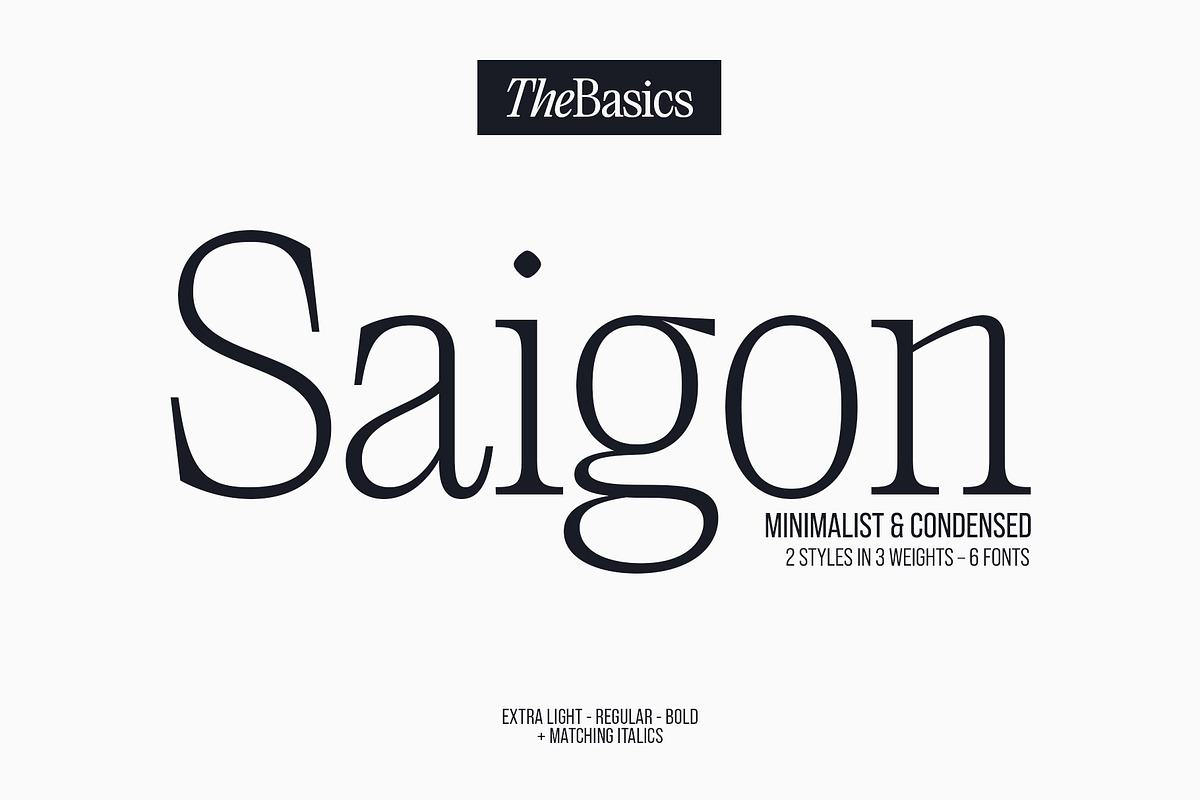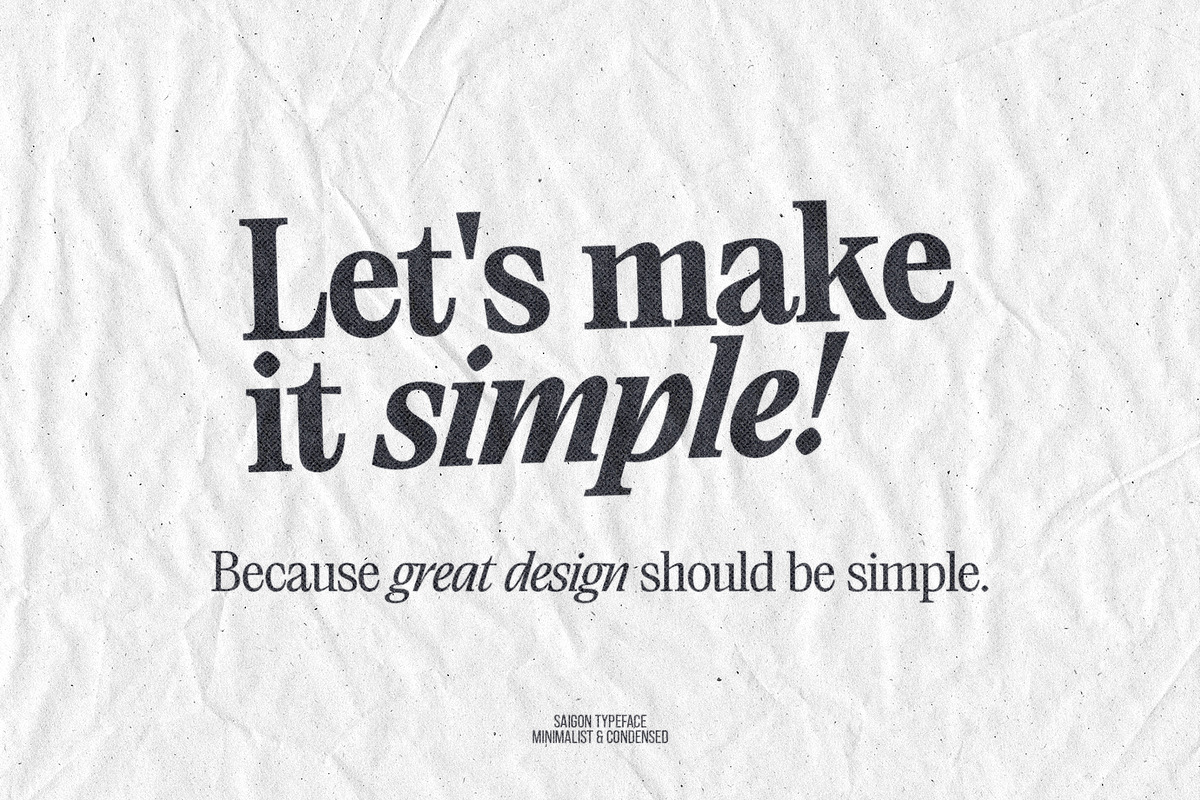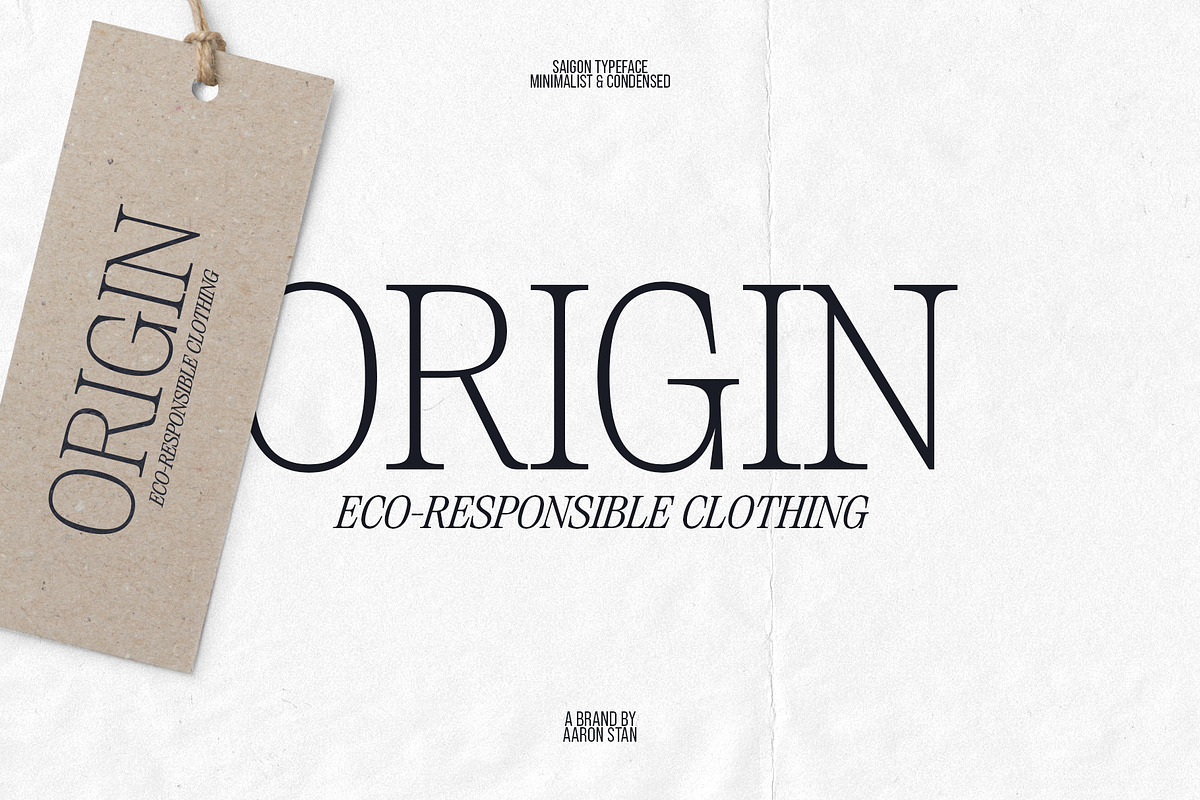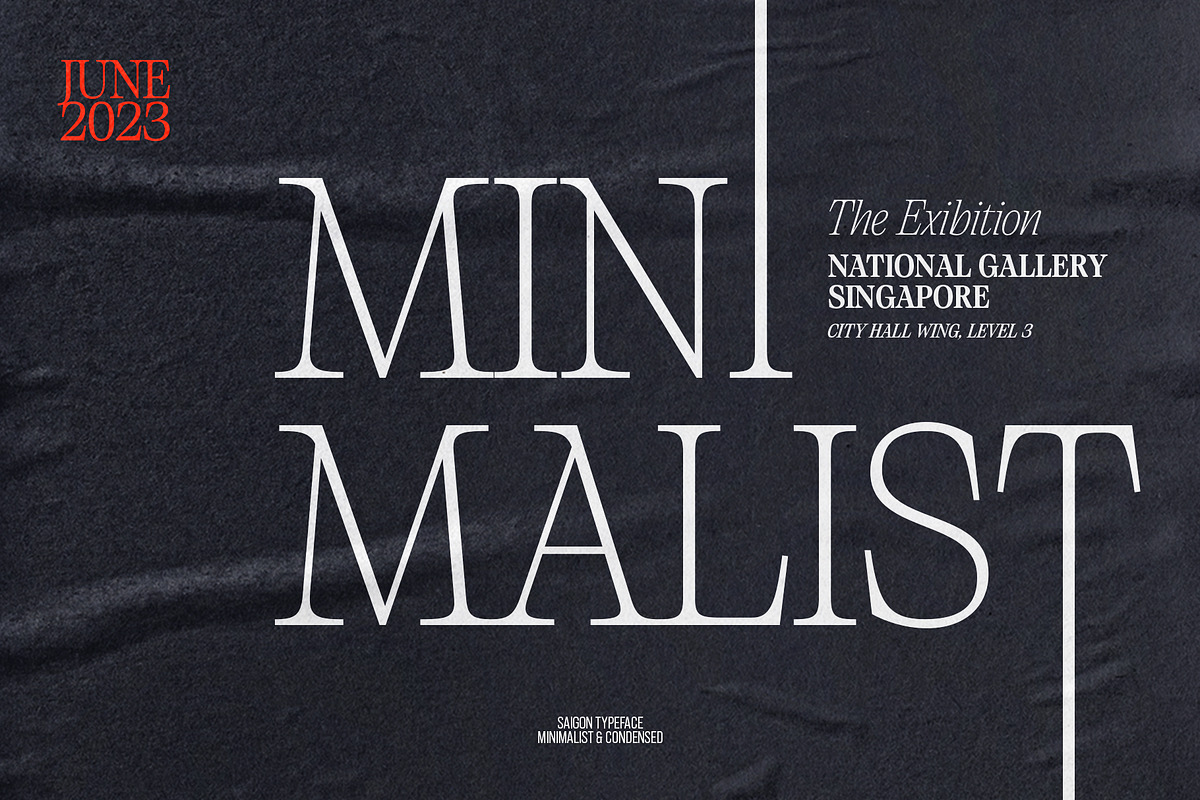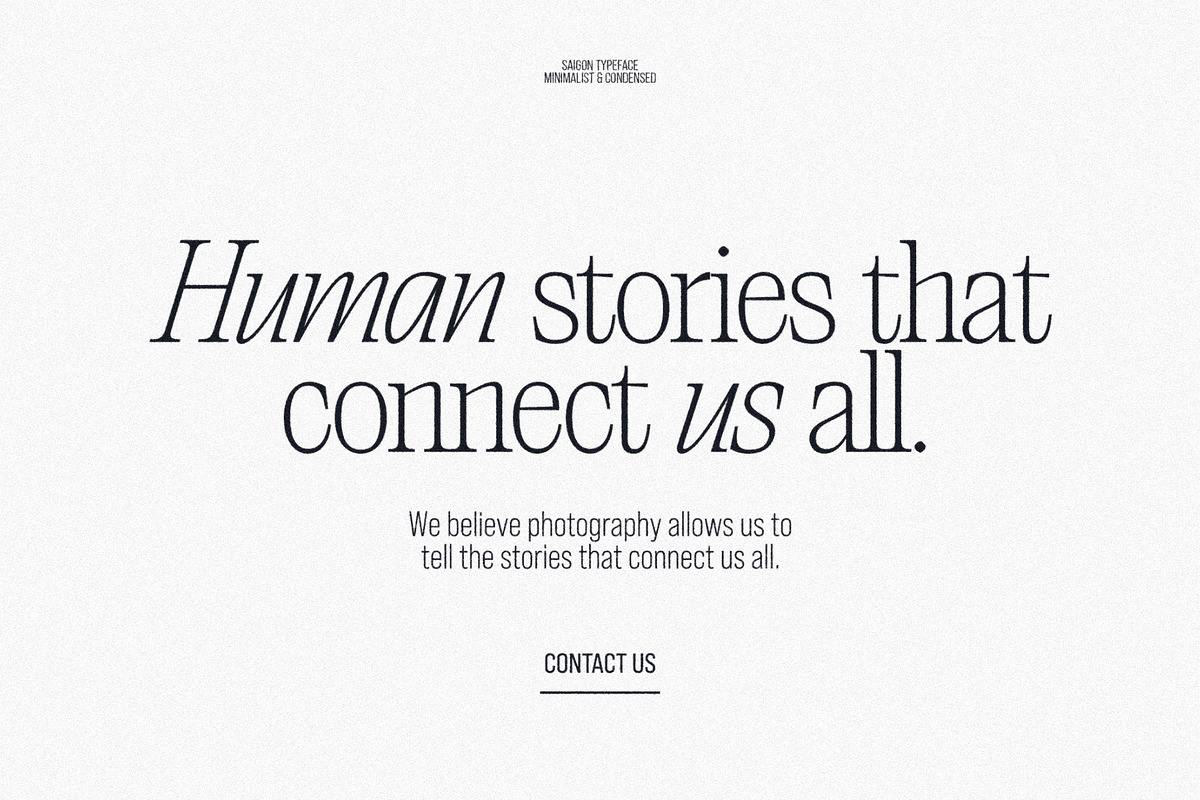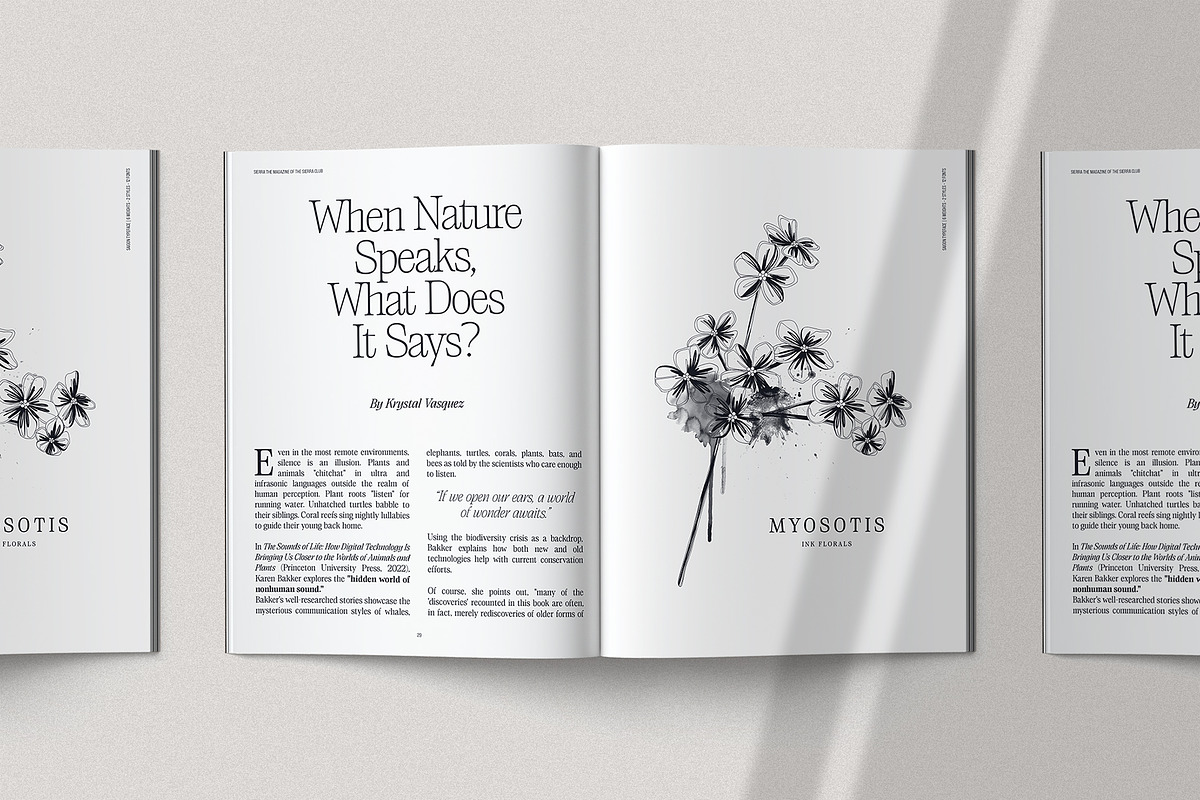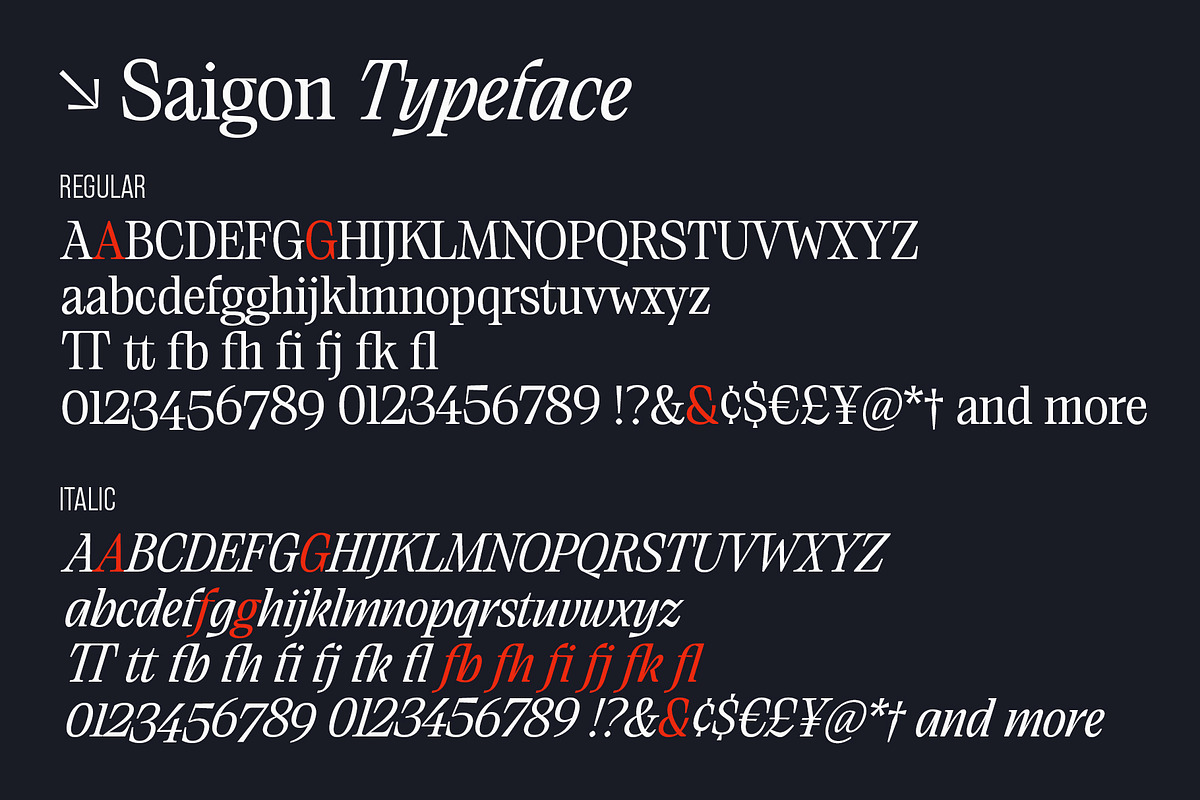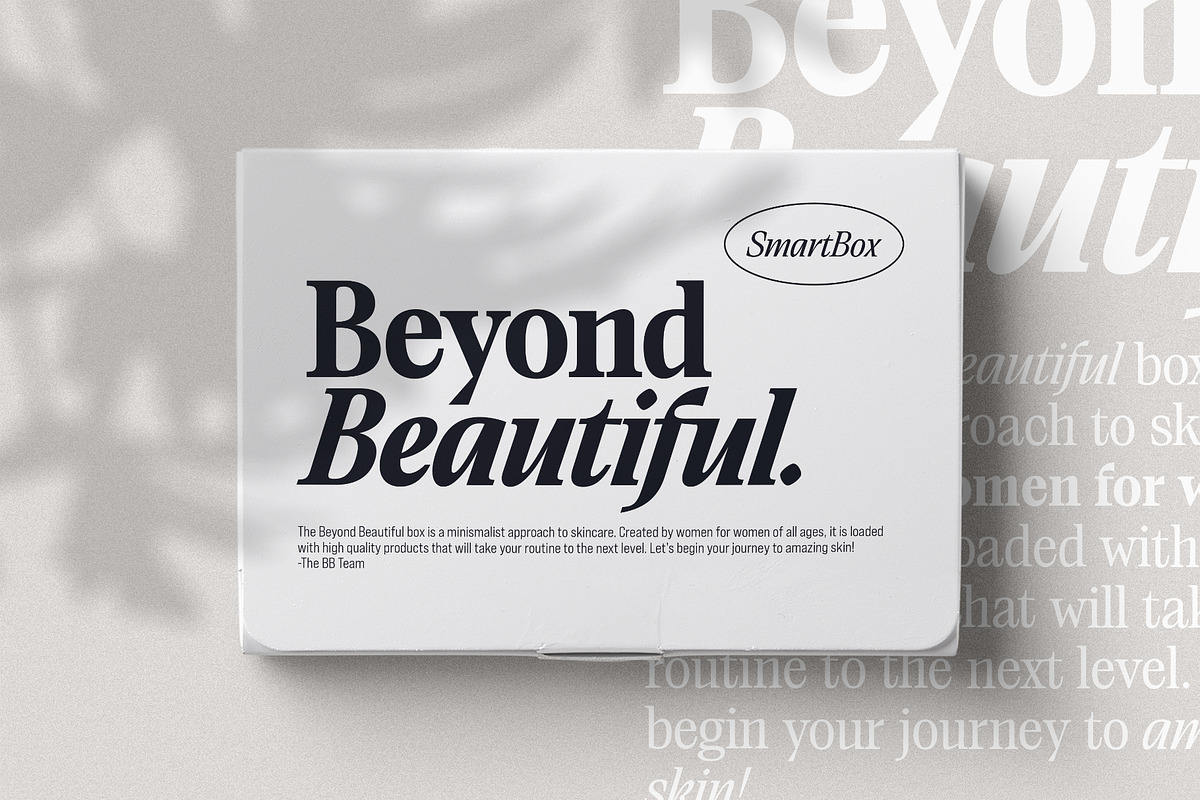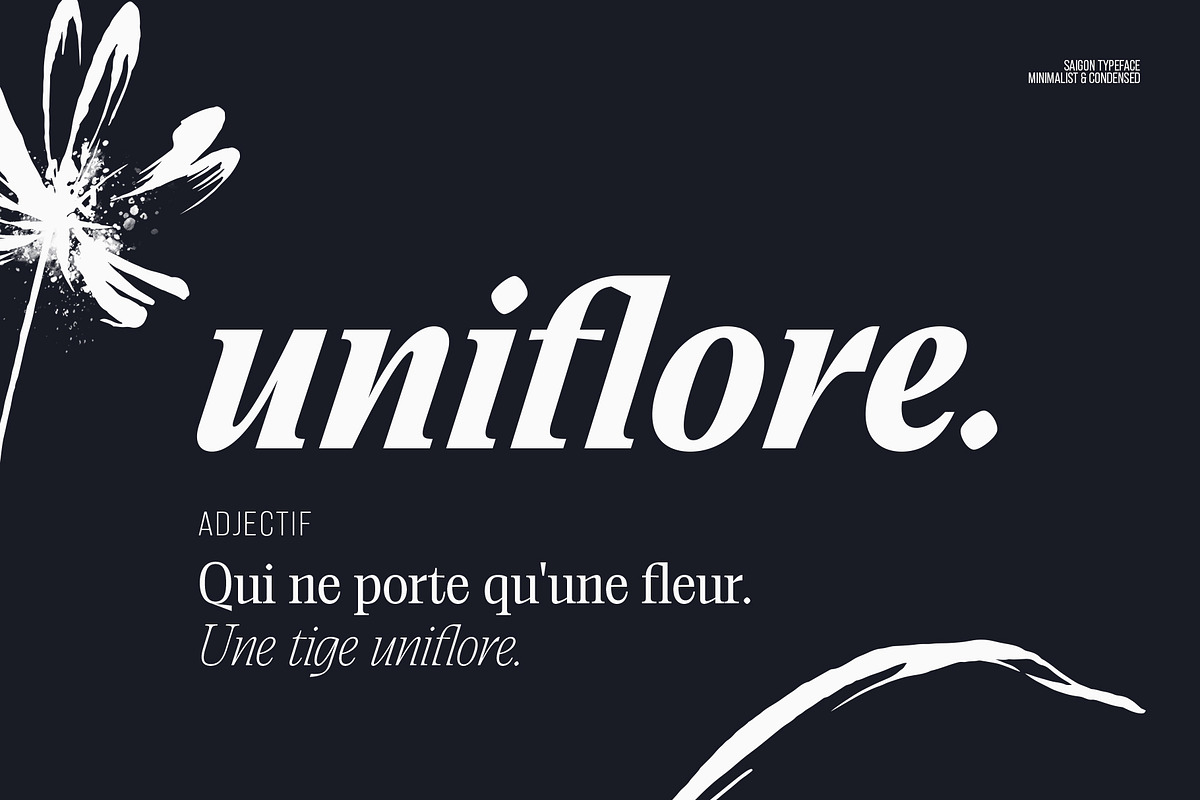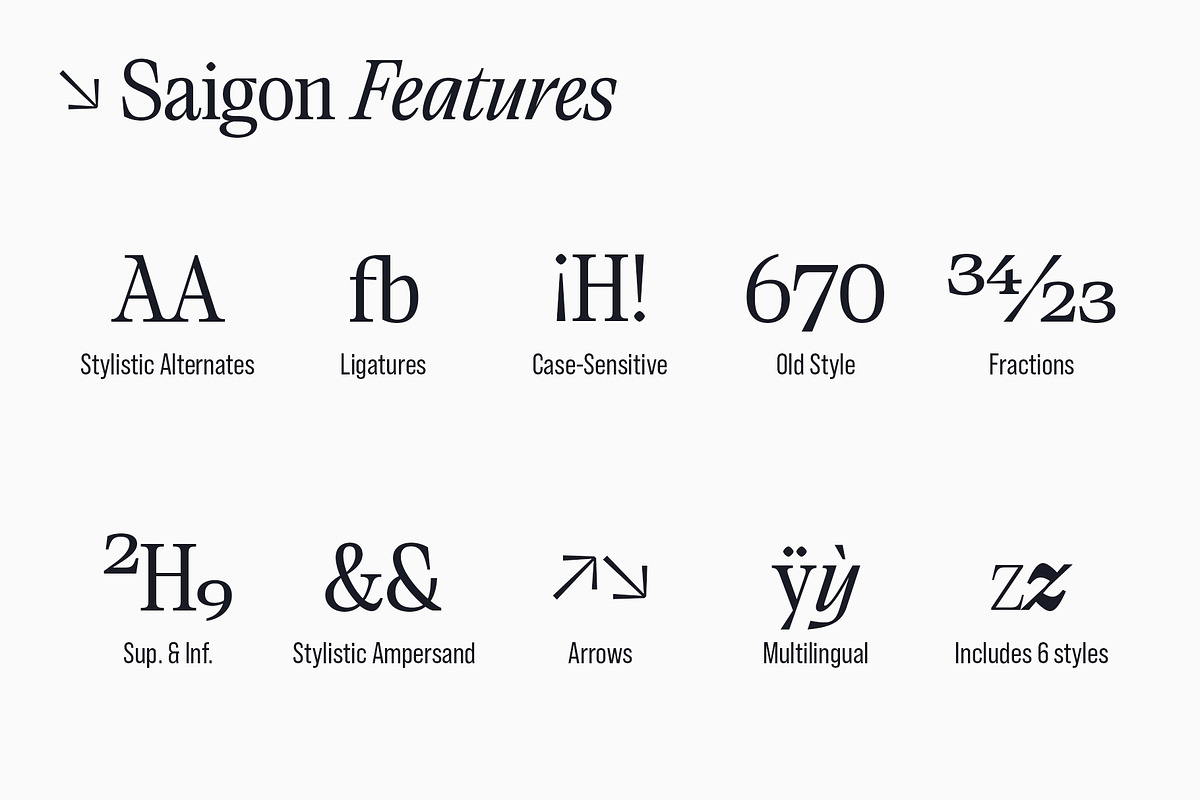
Saigon Minimalist Serif - Basic Pack
Saigon is a minimalist condensed serif family. With clean lines and tight curves, its personality dwells in its simplicity making it a timeless editorial typeface.
As the italic breaks with the traditional strokes and embrace a more modest yet modern look, it blends in nicely with its upright sister, thus creating an harmonious rhythm which emphasis the minimalist approach of Saigon.
The low contrast serif is created to look great in both display and text. Whether it’s bold headlines of descriptive paragraphs, Saigon aims to be as versatile and functional as possible.
It supplies 6 weights from thin to bold allowing you to elevate your typography designs in a minute while keeping it simple. Cause great design should be simple.
The type family supports major Latin-based languages along with opentype features such as fractions, old style numerals, ligatures, case sensitive punctuation, stylistic alternates symbols and more.